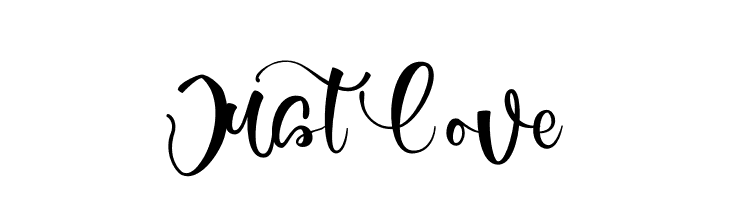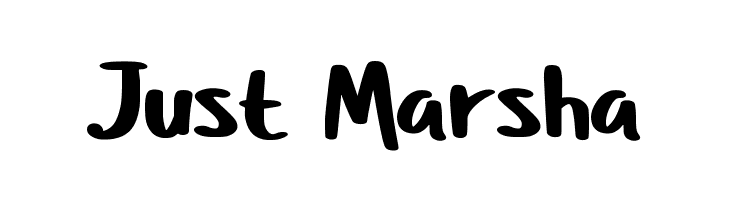
A bold, hand-drawn font with a playful, sketch-like texture.
A playful, bold font with exaggerated curves and a cartoon-like appearance.
A playful, bold font with a hand-drawn, comic-like style.
A playful, handwritten script font with flowing, interconnected strokes.
A playful and elegant script font with flowing cursive letters.
A bold, decorative font with a hand-drawn, textured appearance.
A bold, hand-drawn italic font with textured, slanted characters.
A bold, playful handwritten font with thick strokes and rounded edges.
A casual, playful handwritten font with uneven strokes and a dynamic flow.
A playful, handwritten font with a casual and informal style.